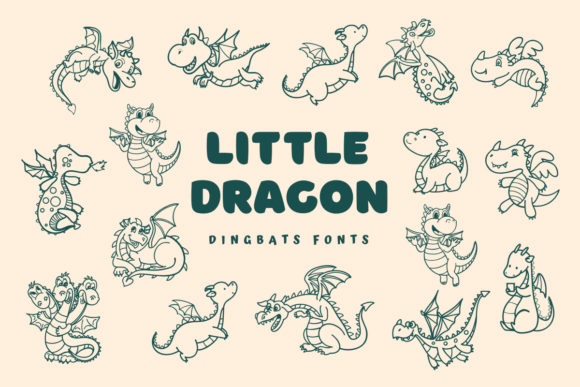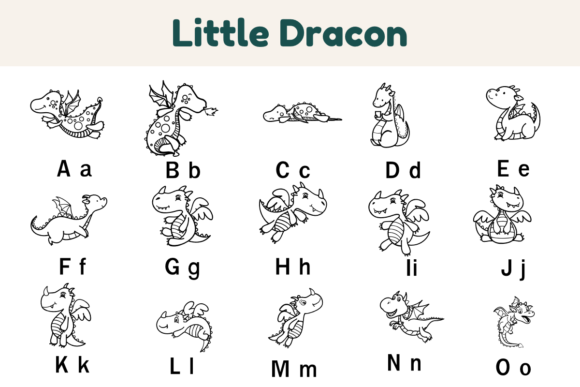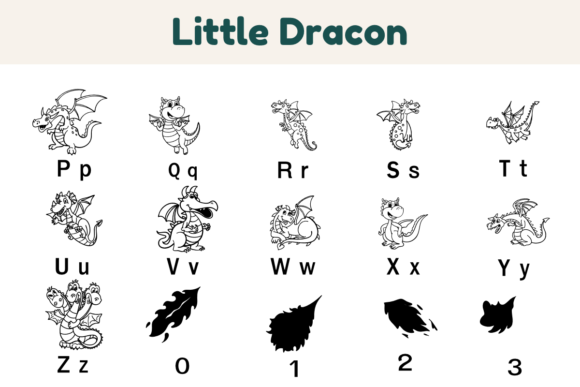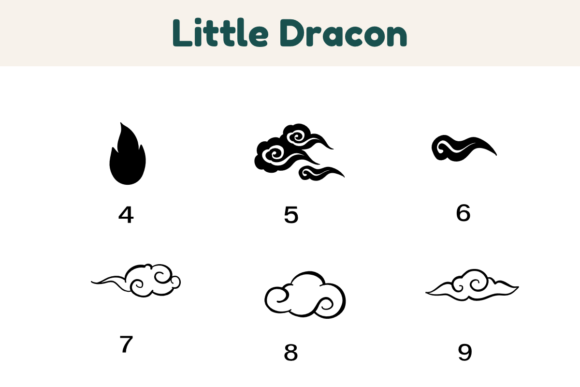
Little Dragon Font
About the Little Dragon Font
Add a touch of class to your work with the Little Dragon Font, a truly exceptional typeface. Little Dragon is a fun dingbats font featuring adorable little dragon characters. These cute symbols add a playful touch to any project. Perfect for adding whimsy to your designs, whether it’s invitations, posters, or digital illustrations. Let your creativity soar with Little Dragon!
Little Dragon’s playful nature makes it ideal for children’s books, branding for playful businesses (toy stores, ice cream shops), or whimsical invitations. It excels in applications requiring a lighthearted touch, such as social media graphics, stickers, and short, impactful headlines. However, its highly decorative nature makes it unsuitable for body text or UI elements where legibility is paramount. Avoid using it for large blocks of text or in situations demanding formal communication.
Pairing Little Dragon effectively requires a contrasting typeface to balance its whimsicality. A clean sans-serif like Open Sans or Lato provides a solid, readable counterpoint for text elements. Alternatively, a classic serif such as Garamond or Merriweather can add a touch of sophistication, creating a pleasing juxtaposition of styles. In either case, the secondary font should be used sparingly, allowing Little Dragon to retain its visual prominence.
The font’s overall personality is undeniably cheerful and friendly. Its charm is best utilized in projects targeting a young audience or aiming for a lighthearted, approachable brand image.
Little Dragon Font Usage Examples
Little Dragon Font Example